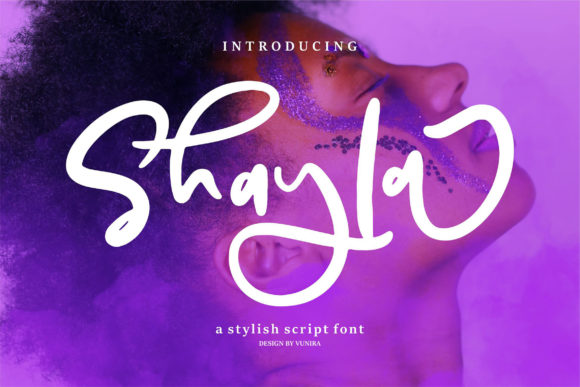
Step into the captivating world of Shayla Font, a script typeface that dances across your designs with an unrivaled elegance. With its bold and distinctive curves, Shayla brings a touch of nostalgia to every letter, evoking memories of heartfelt handwritten notes and vintage love stories.
Crafted by the visionary minds at Vunira, Shayla Font empowers you to weave your words into a tapestry of timeless beauty. Imagine your headlines commanding attention, your logotypes radiating a touch of retro charm, and your designs imbued with an air of sophistication that transcends the ordinary.
Unleash the power of Shayla Font to elevate your creations beyond the mundane into the realm of the truly captivating. Let its flowing strokes ignite your imagination and guide you to design masterpieces that resonate with every viewer's heart.